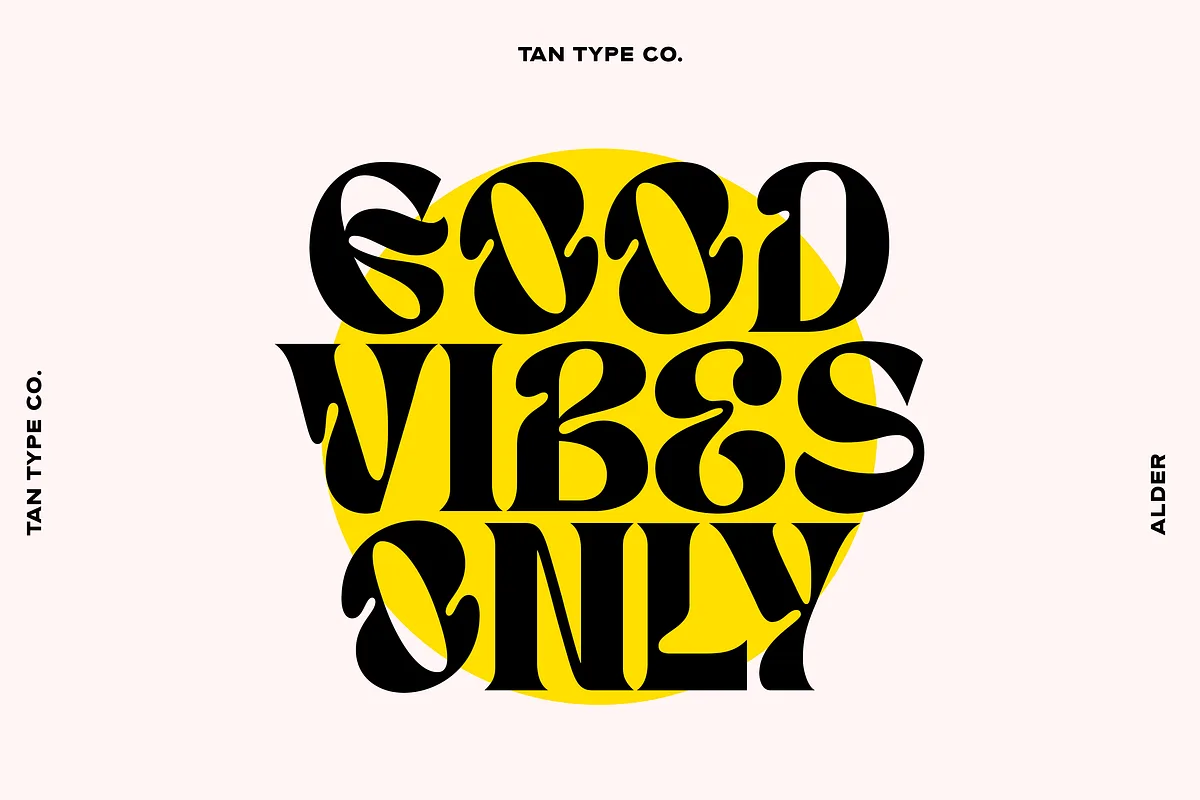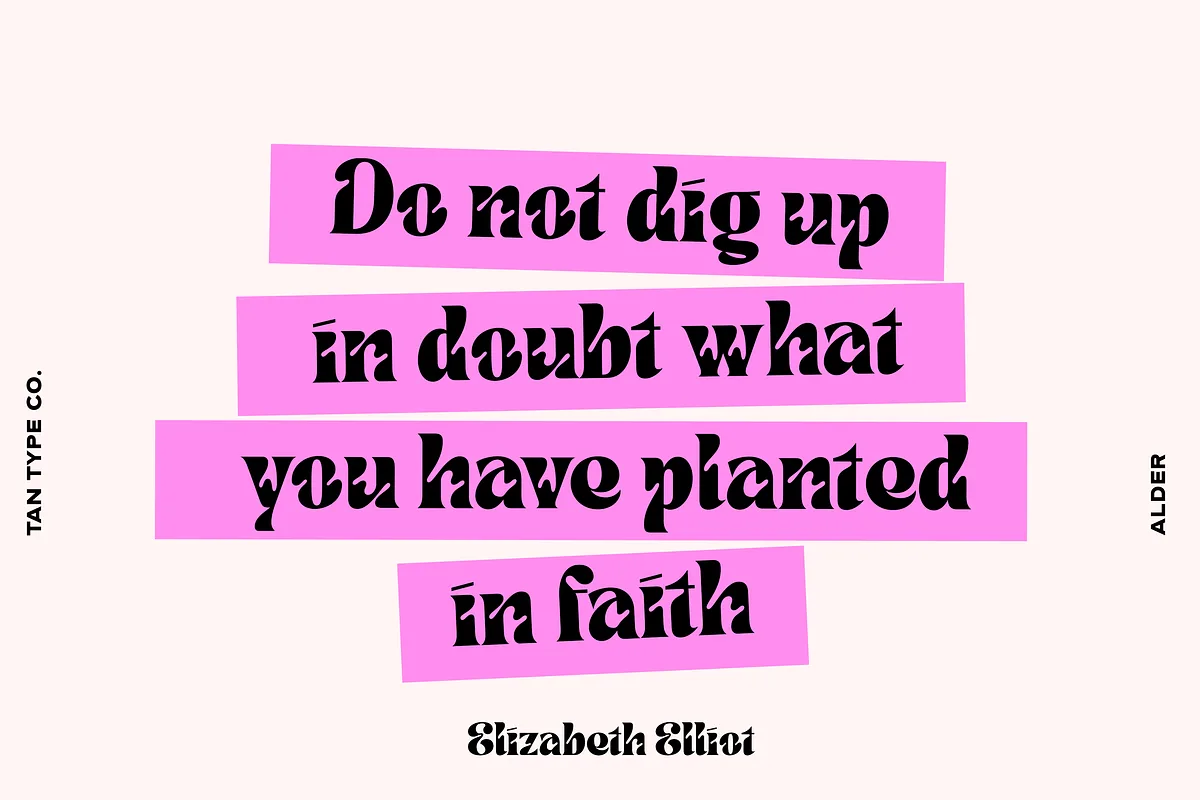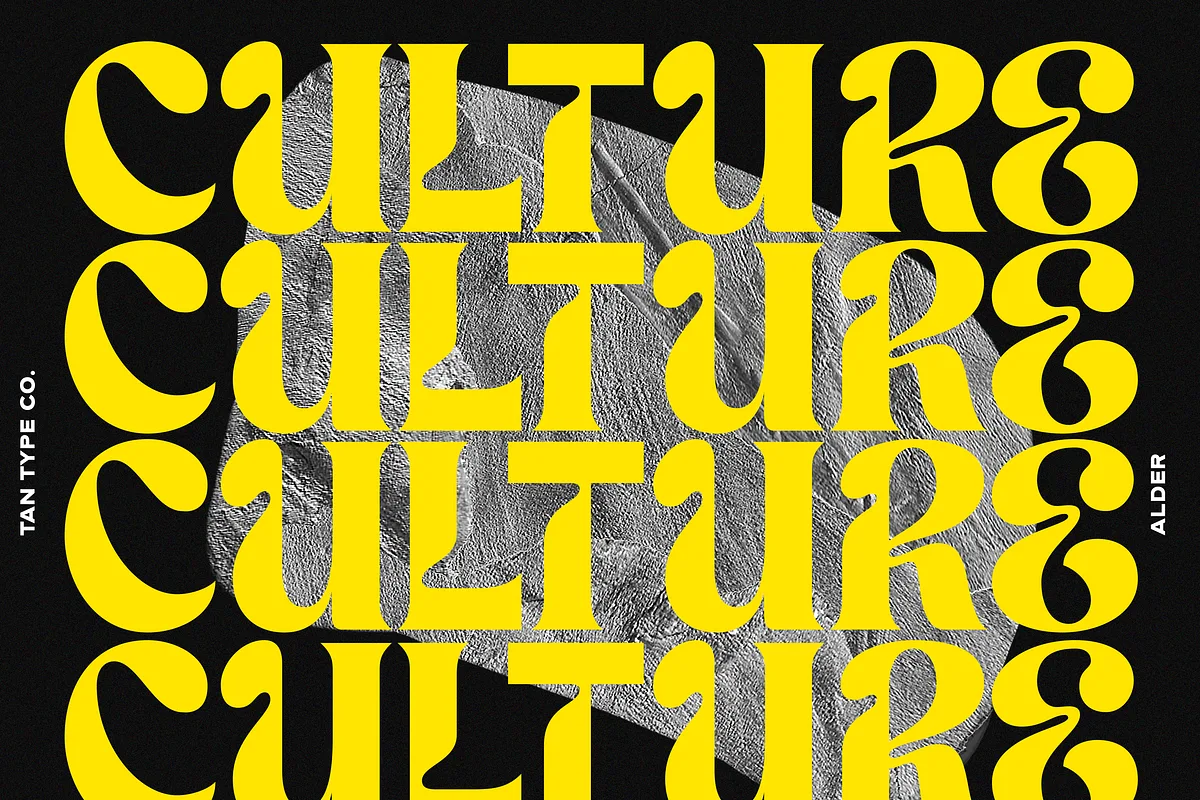
TAN – ALDER is a display type with fun twist, it is a less conventional font, as you can see. Quirky is his middle name. It’s bold and confident, fun to play with but legible enough to be read.